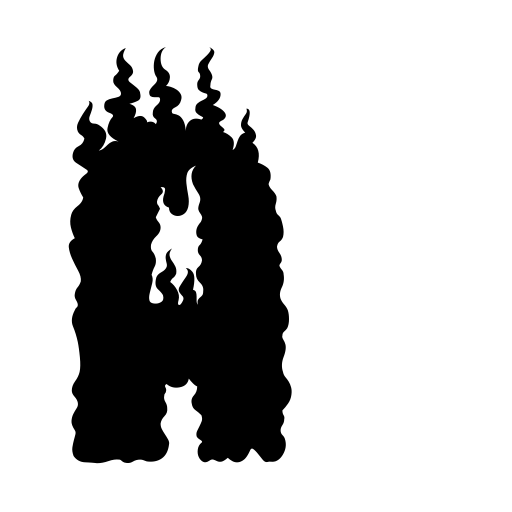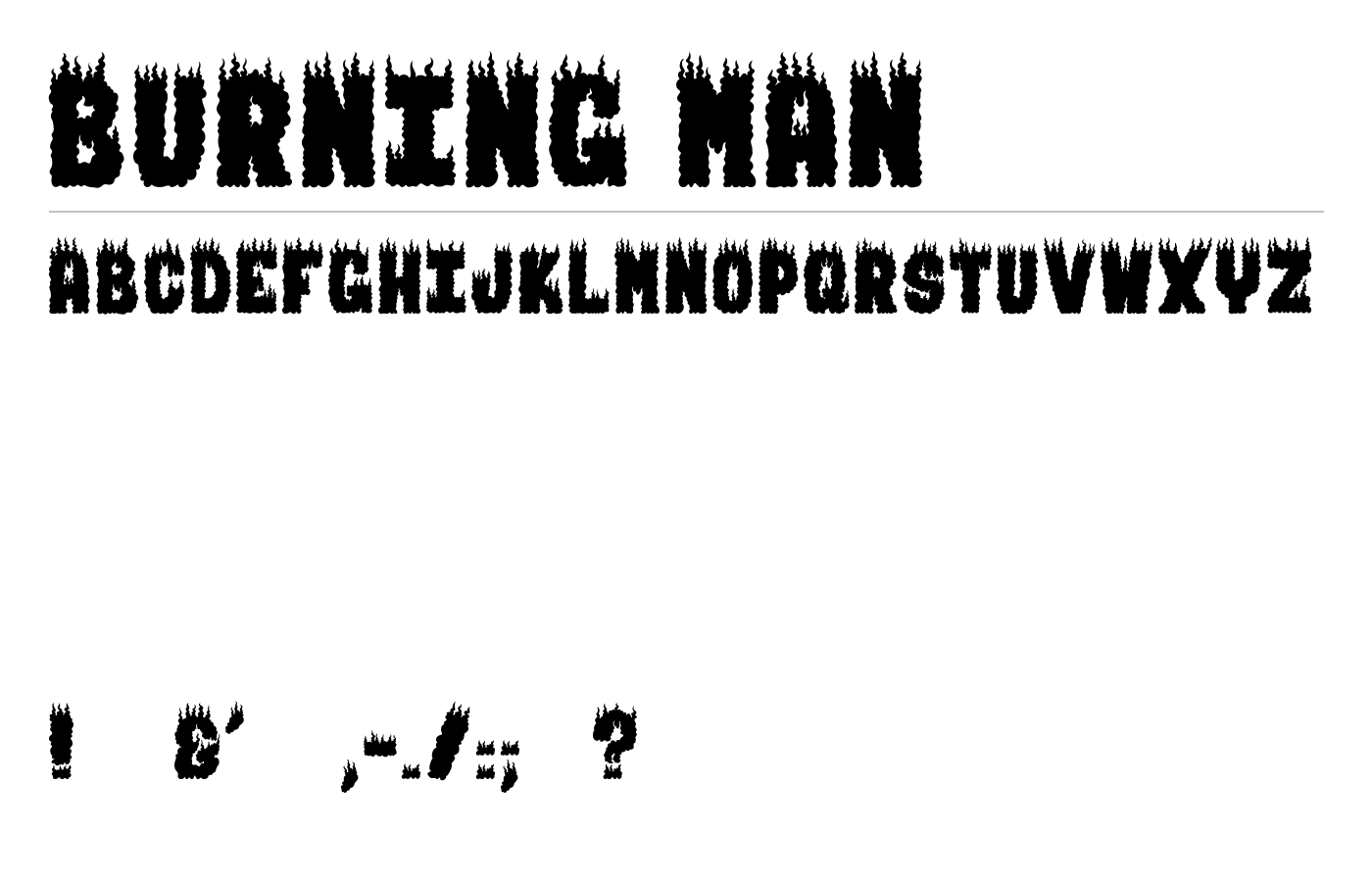
Burning Man is a bold, all-caps display font with a playful and fiery personality, featuring thick, blocky letters topped with flame-like shapes. Its strong, condensed forms and high visual impact make it perfect for attention-grabbing headlines, posters, or themed event branding where a dynamic and edgy vibe is desired. This font works best when you want to convey energy, heat, and excitement in a fun and dramatic way.
BURNING MAN Font
About BURNING MAN Font
| Font family | BURNING MAN Font |
| Designer | dcoxy Medina Gregory |